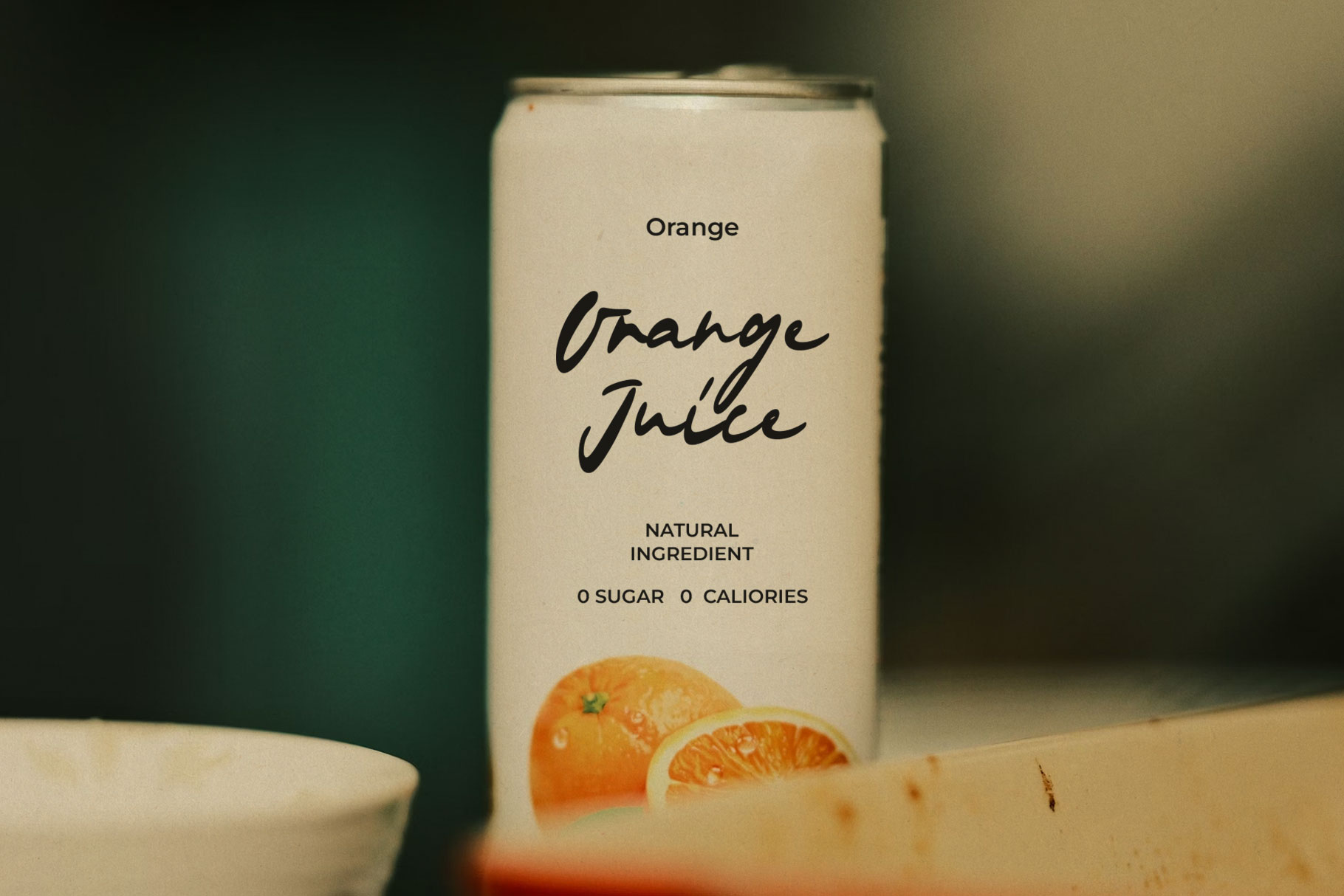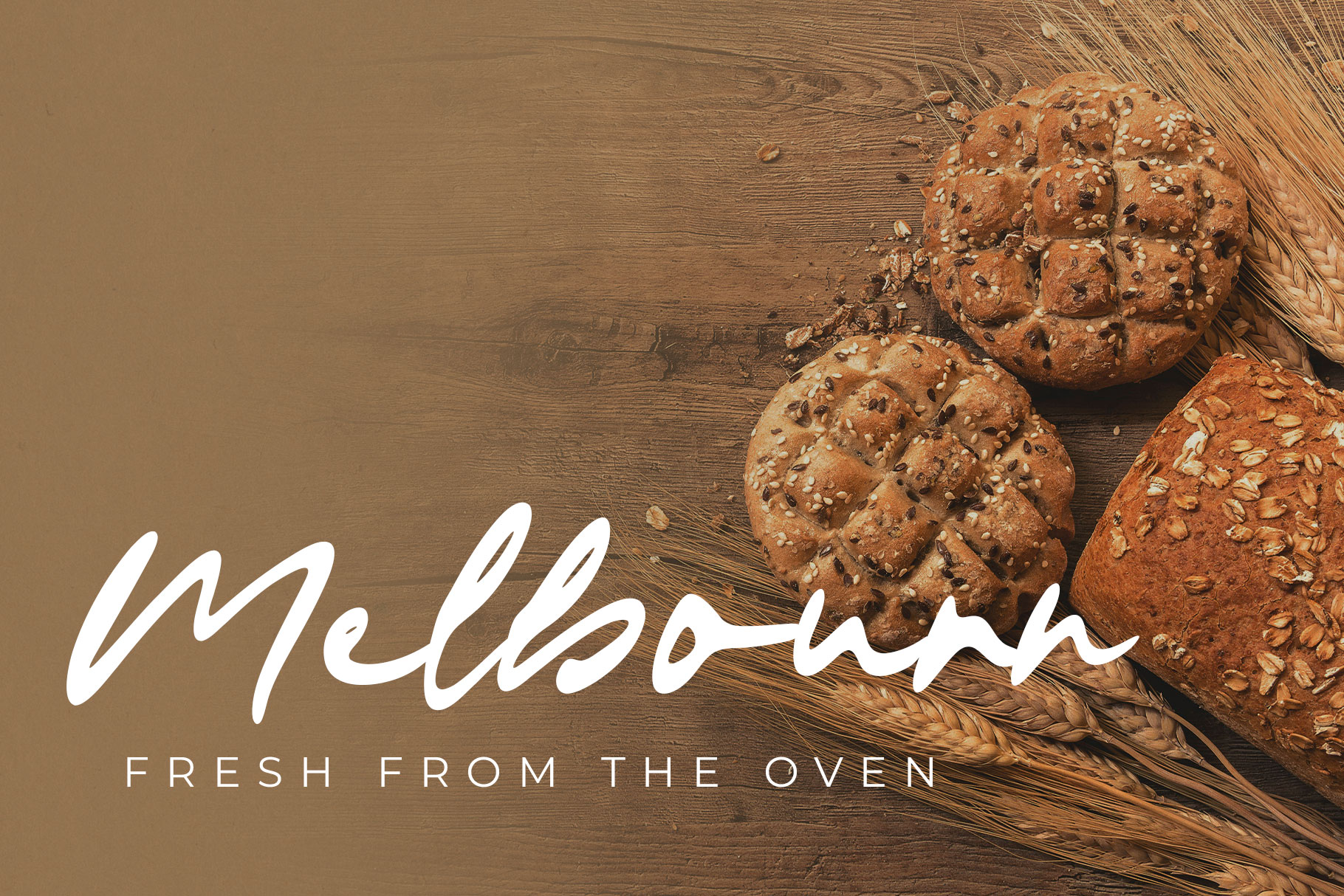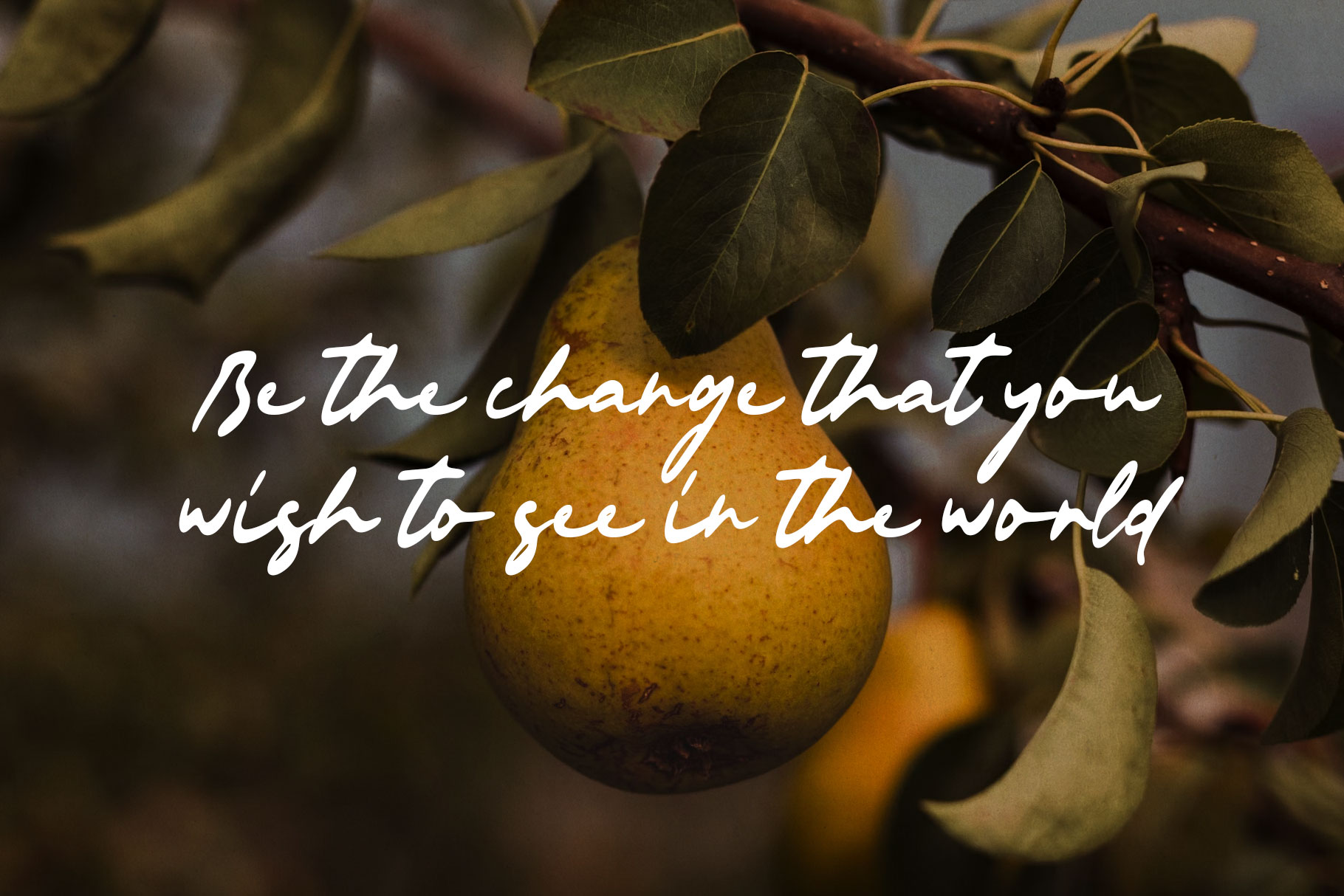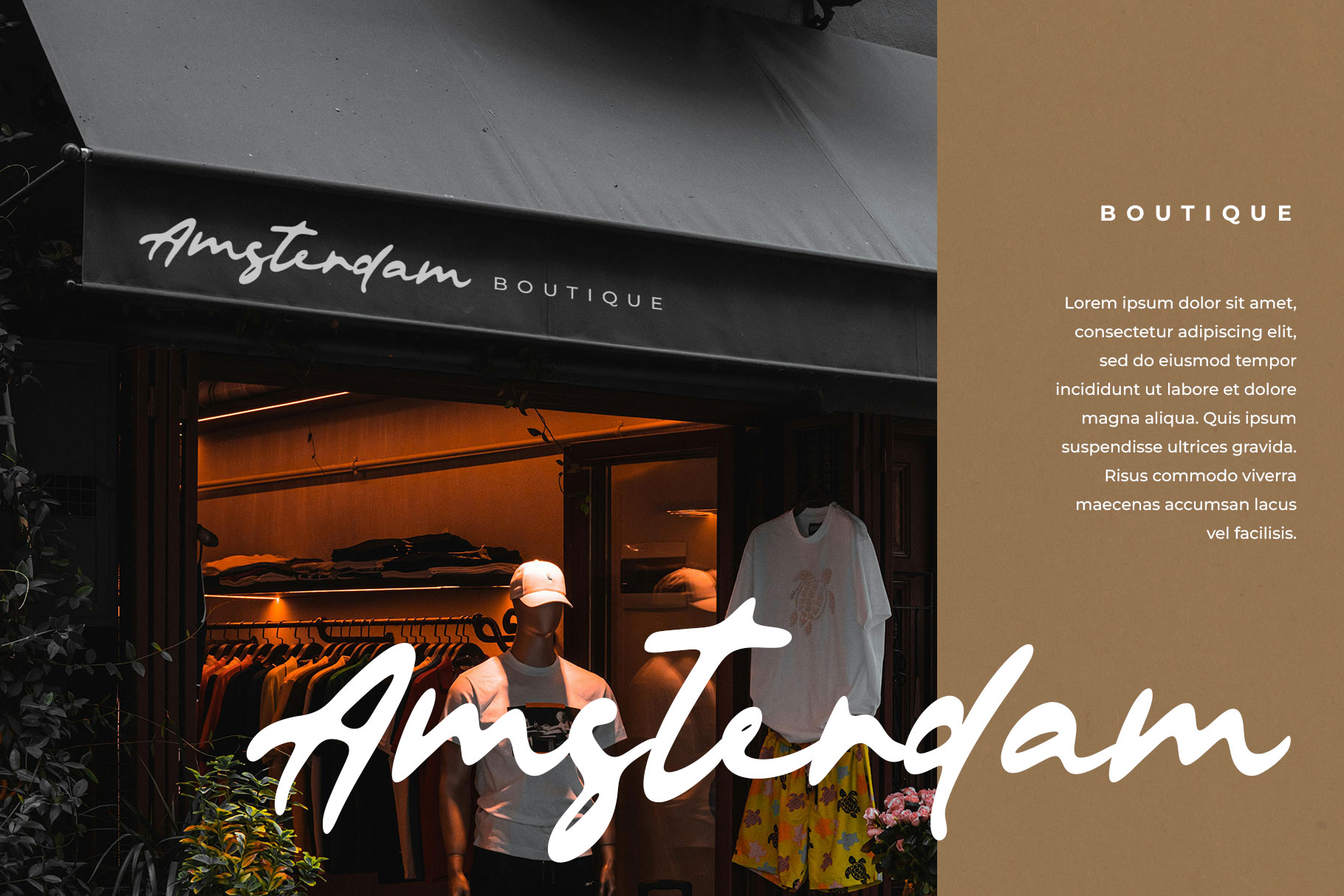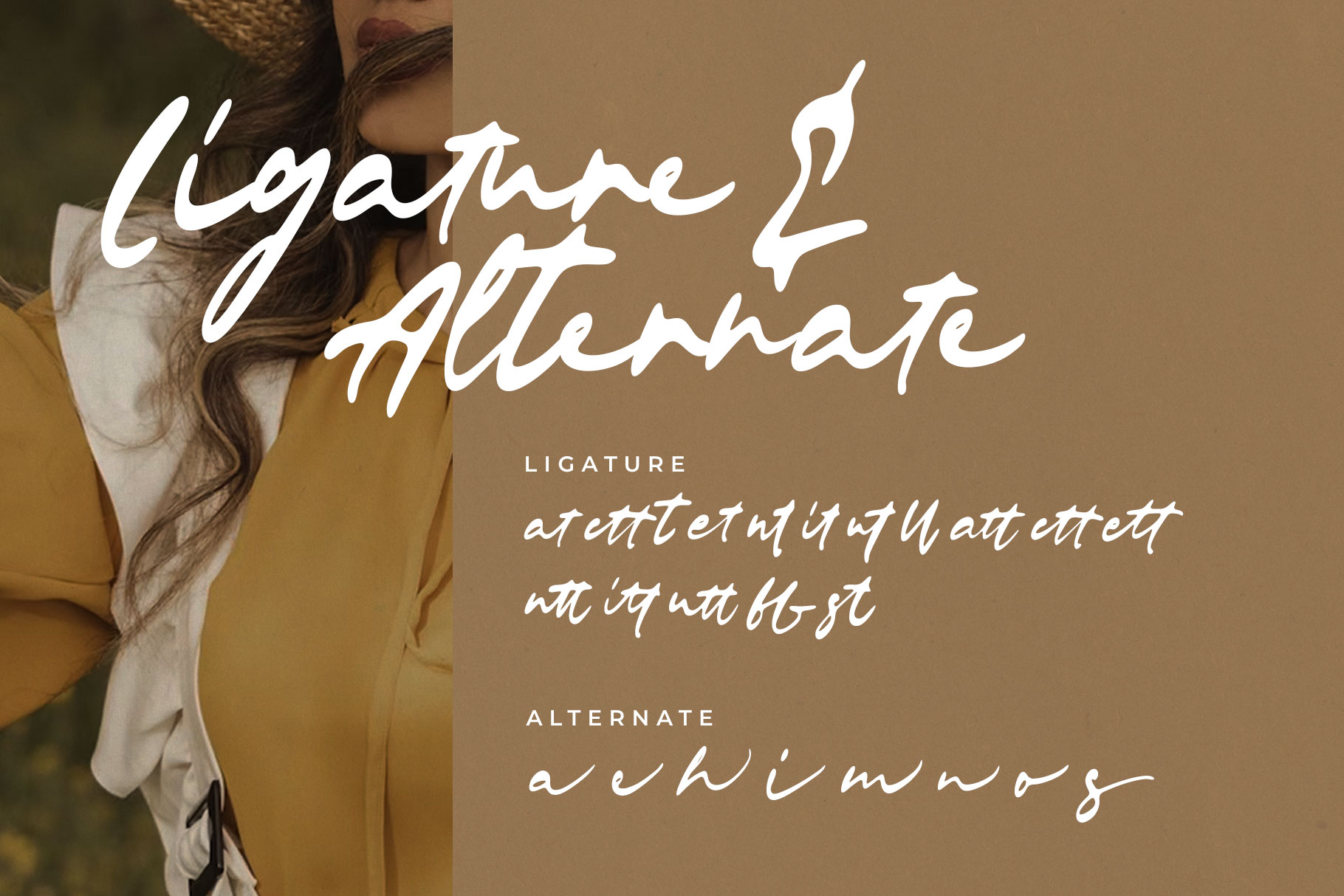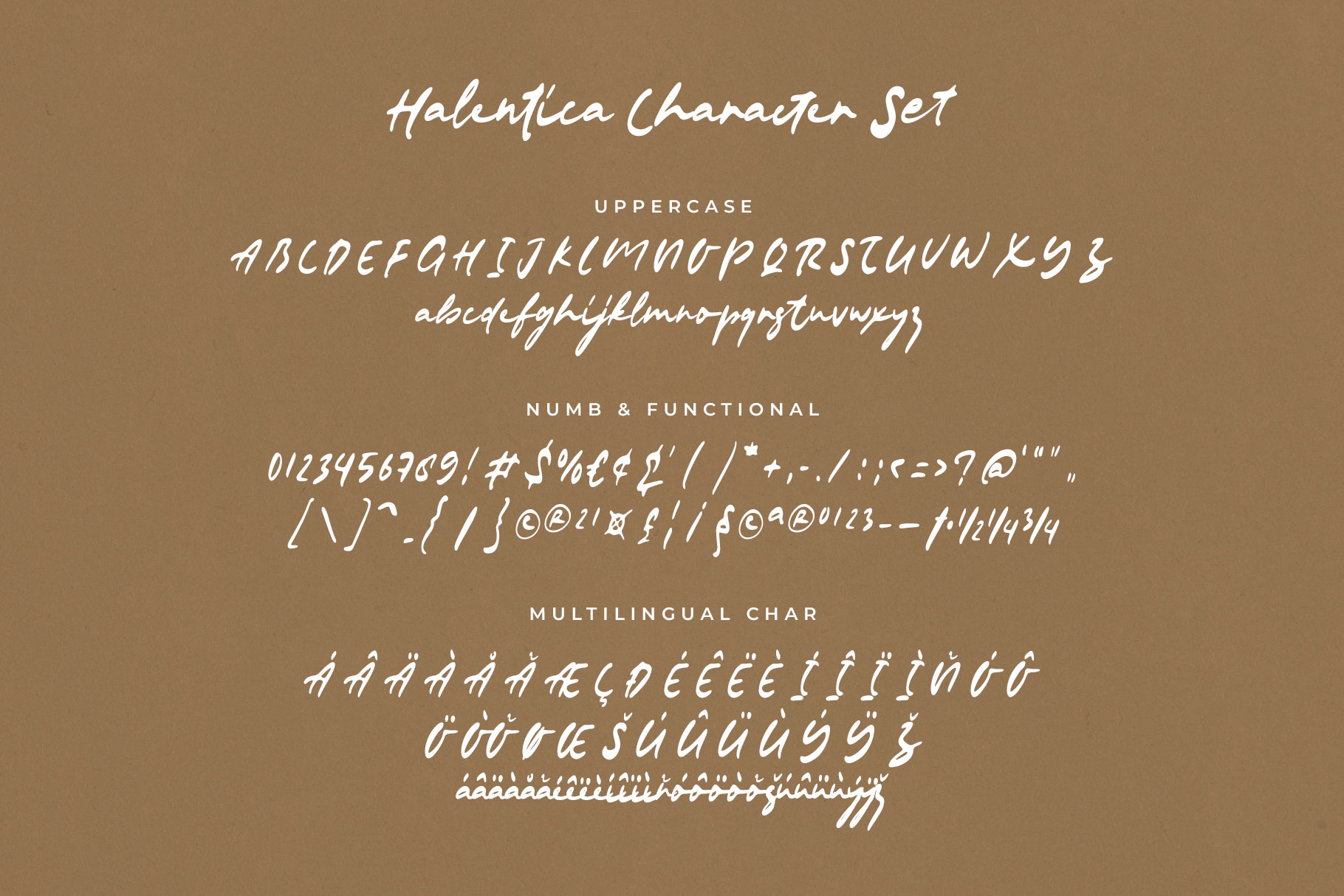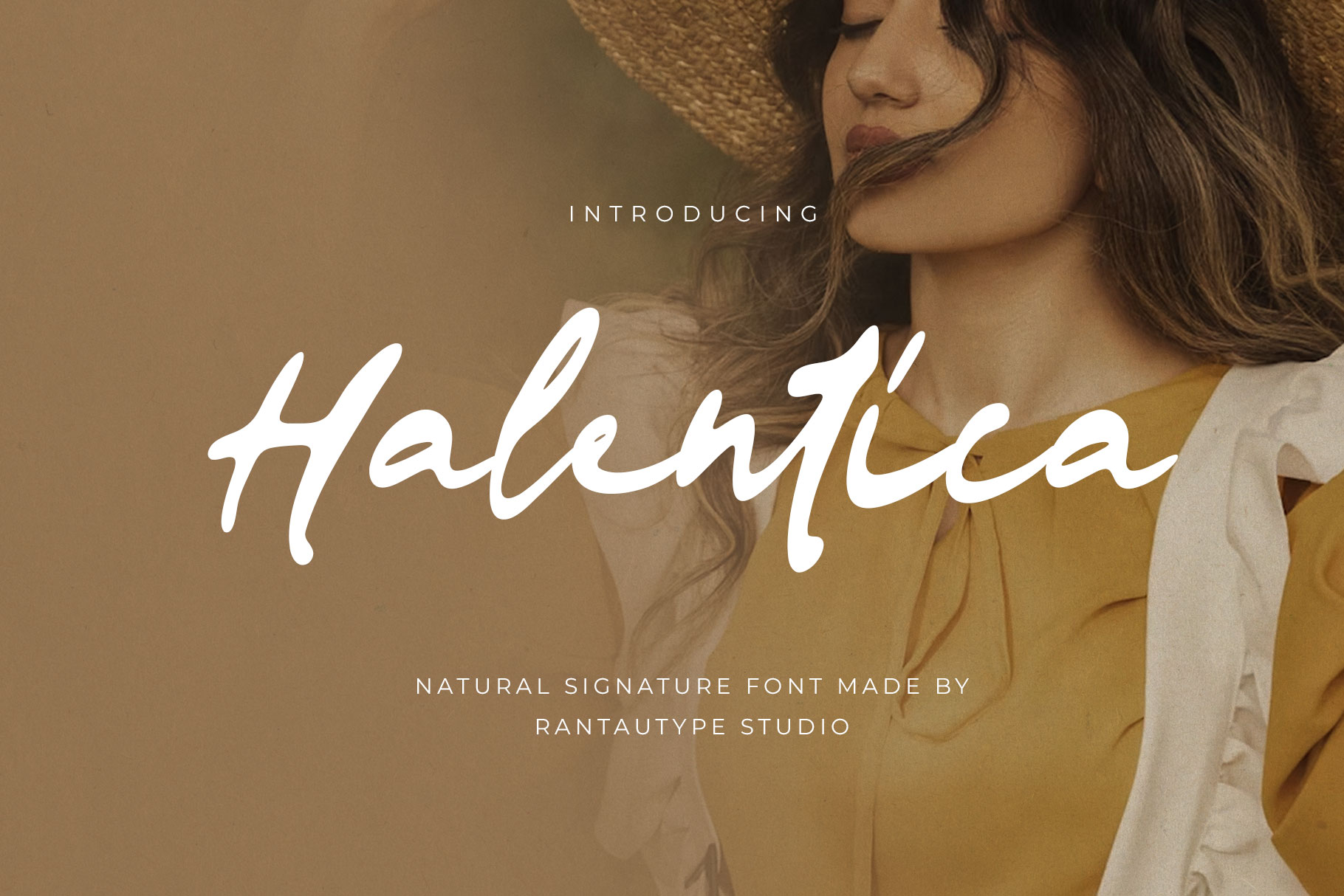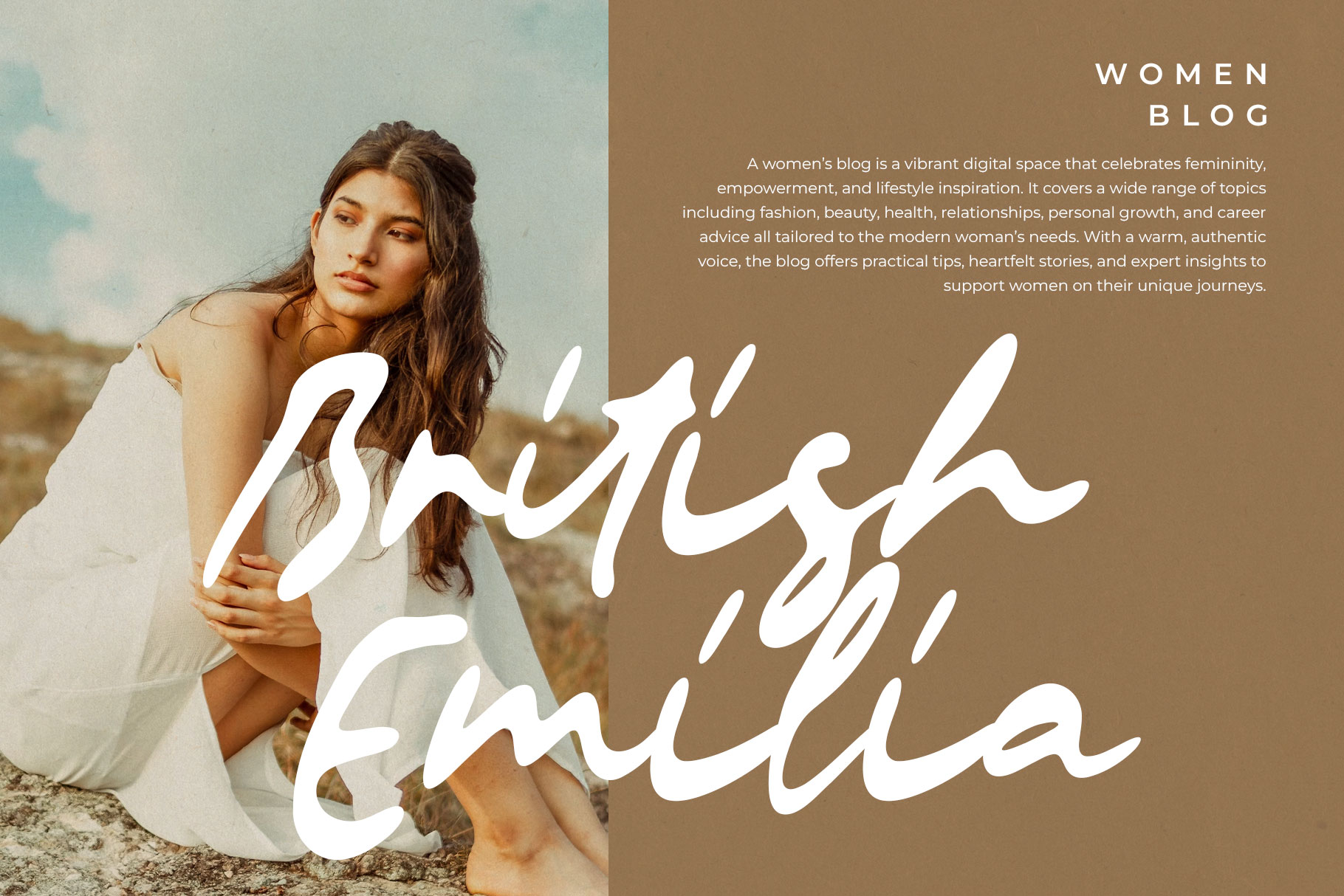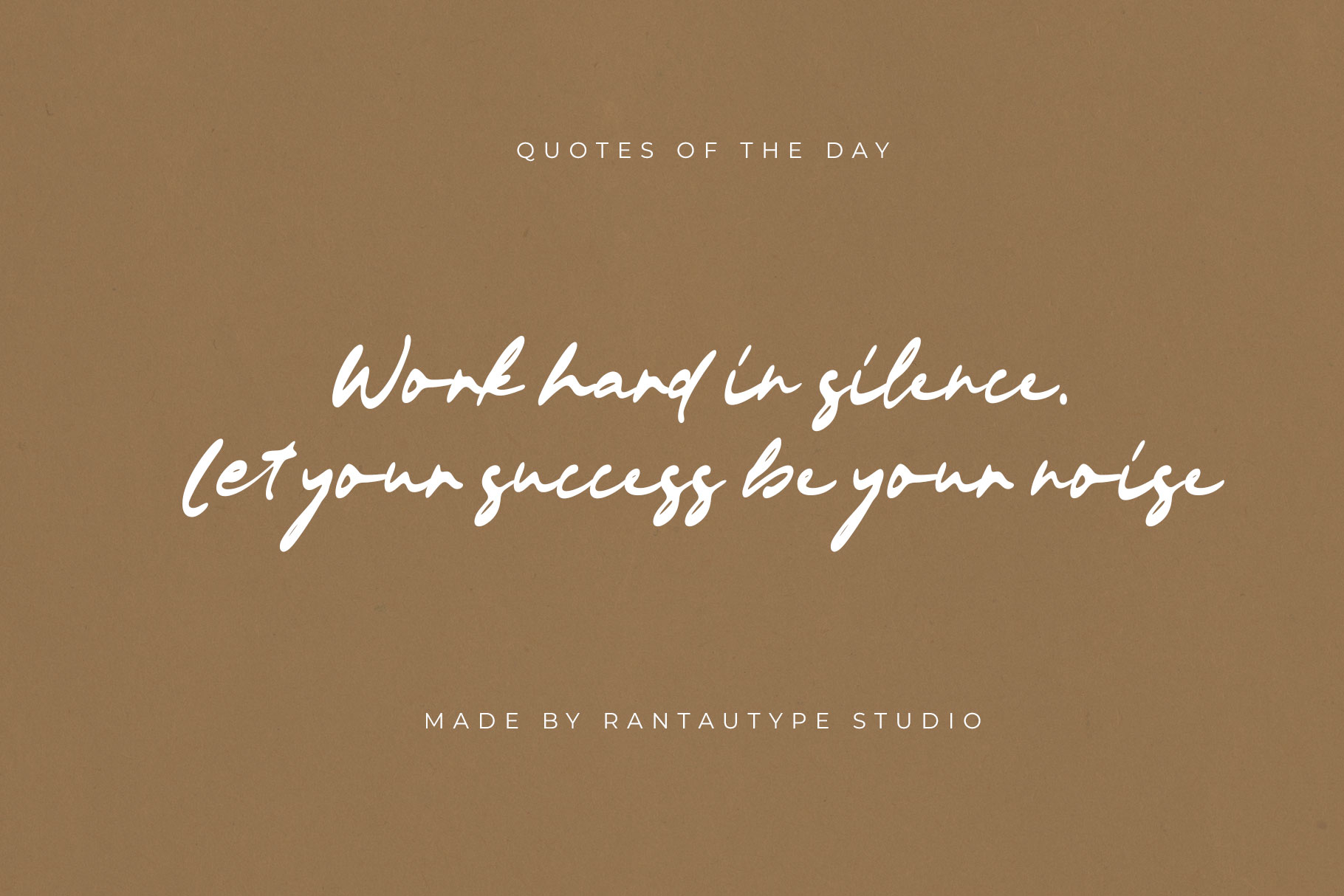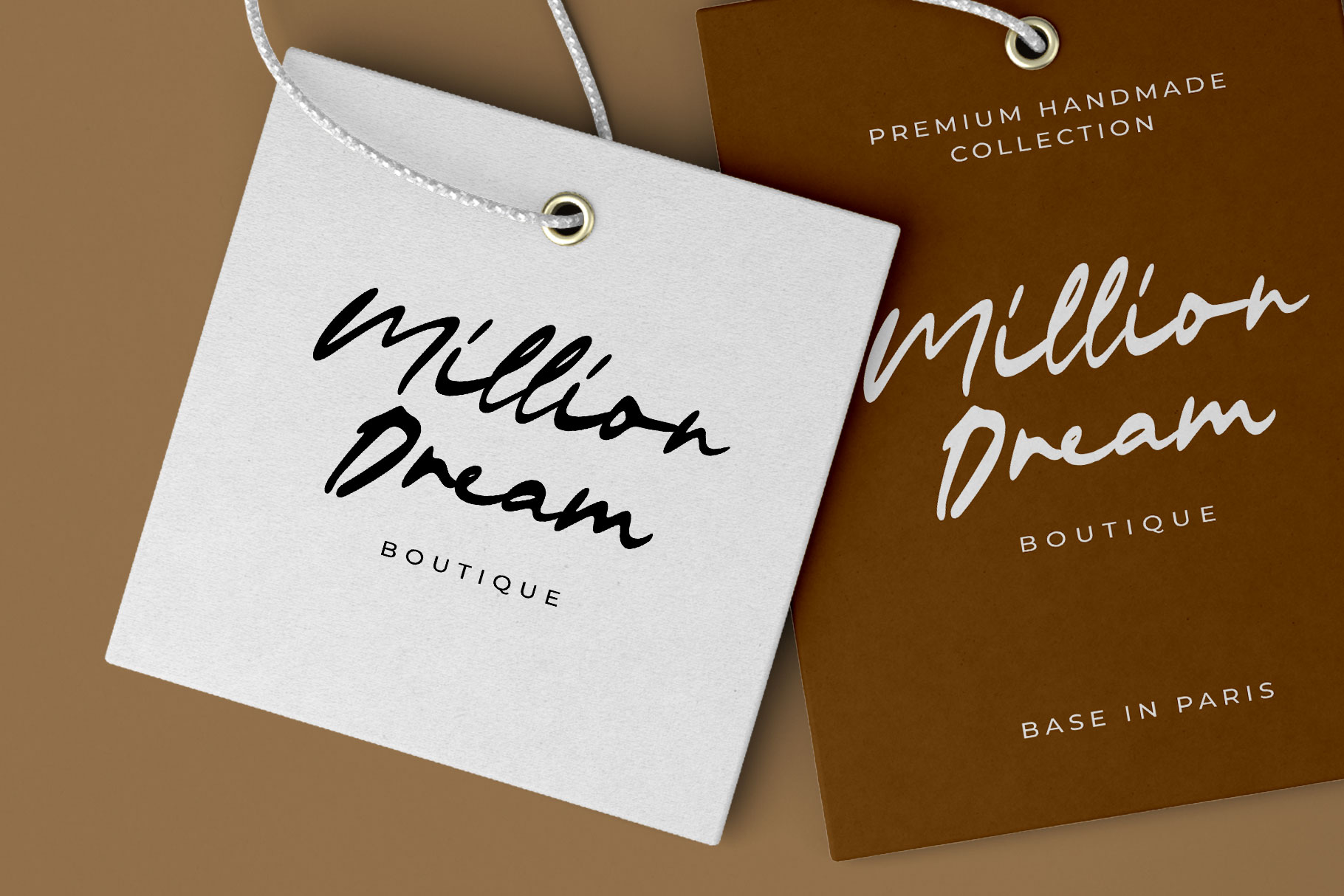
Halentica Natural Signature Font
Halentica is signature font of hand-drawn strokes, blending organic flow with artistic expression. Each letter feels alive, infused with texture and motion that echo the natural movement of a brush on canvas.
Halentica is a perfectly choice for any creative endeavor, creating, modern, lifestyle design such as logotype, title, cover, branding, invitations, wedding designs, display and magazine, social media posts, advertisements, printed quotes, product packaging, corporate brand, product designs, labels, photography, watermarks, special events and any other project with handwritten feel.